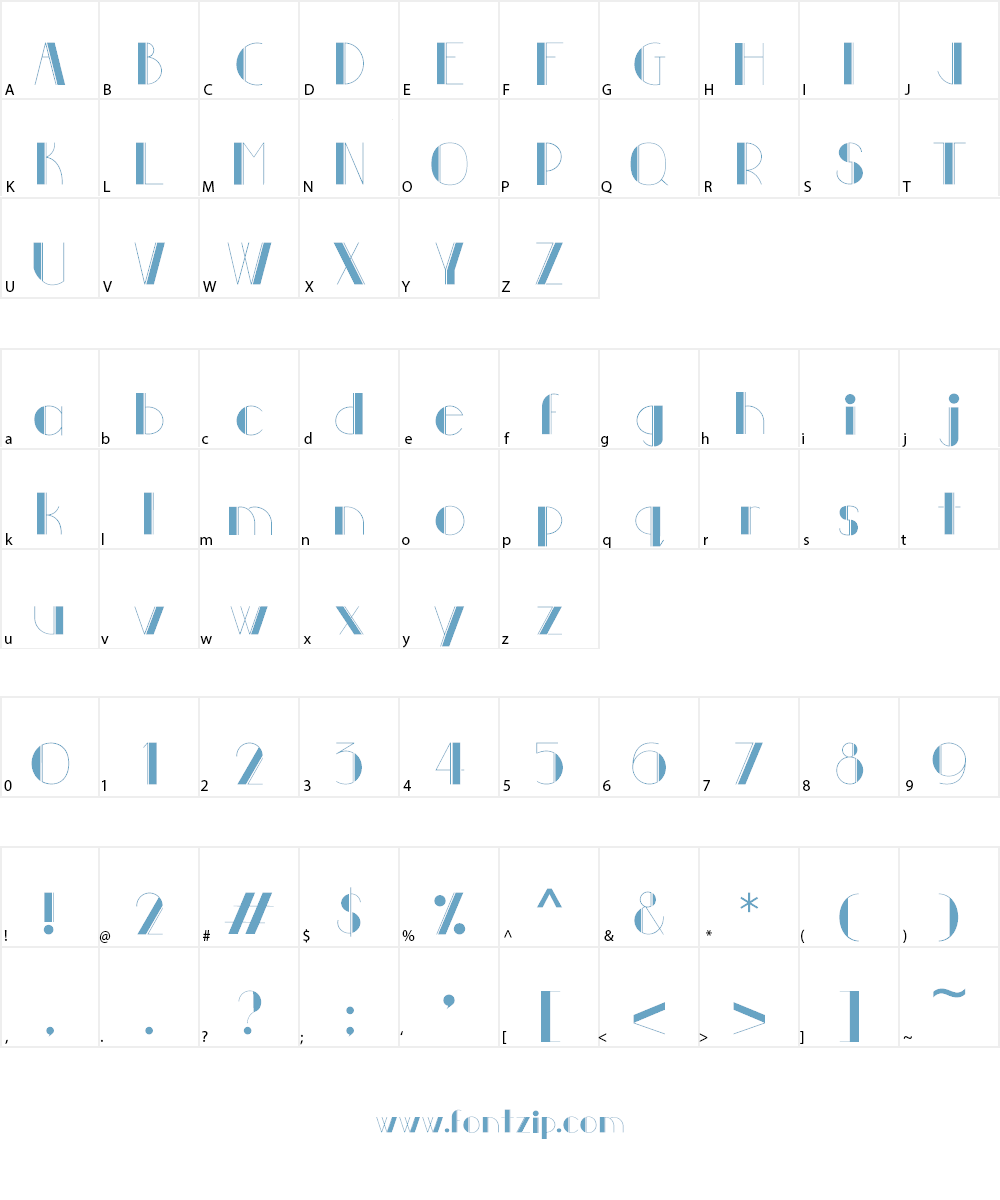
This was the decade of celebration after the mass destruction of World War I and the Great Depression. The Roaring Twenties was the period in Western society and culture with a distinctive edge and style. Jazz music blossomed, the flapper redefined the modern look for woman, the style of architecture developed and art deco was at its peak. This typeface was inspired by womans independence and the Art Deco capital of the world, Napier and its beautiful architecture.